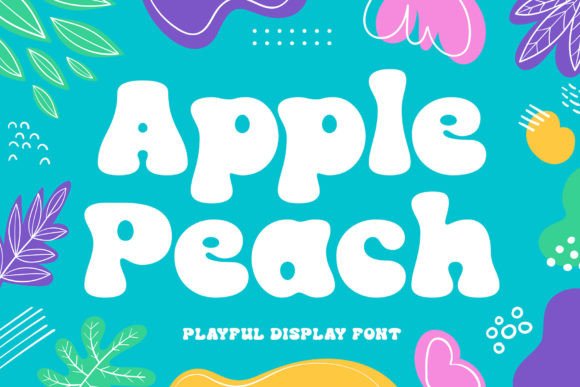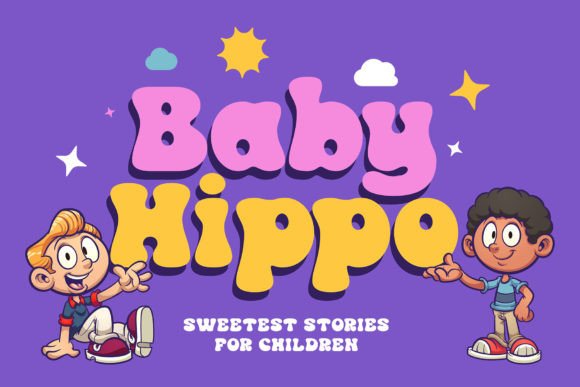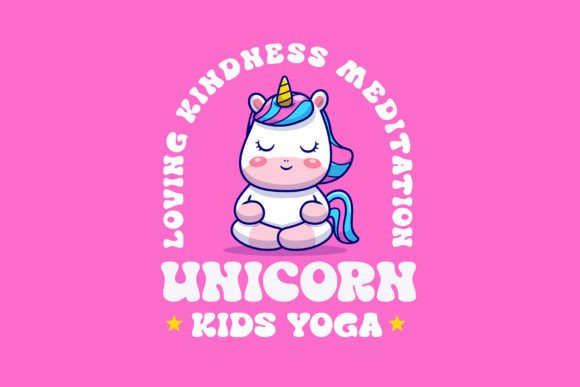
Apple Peach Font
About the Apple Peach Font
Welcome to the world of Apple Peach Font, a typeface that will inspire your next great project. Apple Peach is a cubby and childish display font that can also be easily used in the modern era. It is perfect for anyone who wants a fat and smooth typeface with a high level of legibility. The advantage of this font is that it can be used for various product designs according to your needs.
Apple Peach excels in headlines, short titles, and branding applications where a friendly, approachable, yet modern feel is desired. Its playful nature makes it ideal for children’s products, playful brands, and projects targeting a younger demographic. Avoid using it for body text or lengthy paragraphs; its bold weight and rounded forms can hinder readability at smaller sizes.
For optimal impact, pair Apple Peach with a clean sans-serif like Montserrat for a contemporary contrast, or a delicate script font such as Great Vibes for a touch of elegance and sophistication. A geometric sans-serif like Futura would add a modern, structured element, balancing Apple Peach’s playful curves.
The overall personality of Apple Peach is best described as friendly and approachable, with a subtly modern twist. Its bold yet rounded forms strike a balance between fun and sophistication.
Apple Peach Font Usage Examples
Apple Peach Font Example